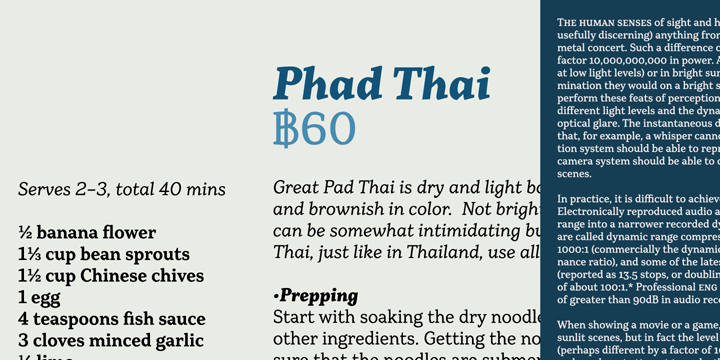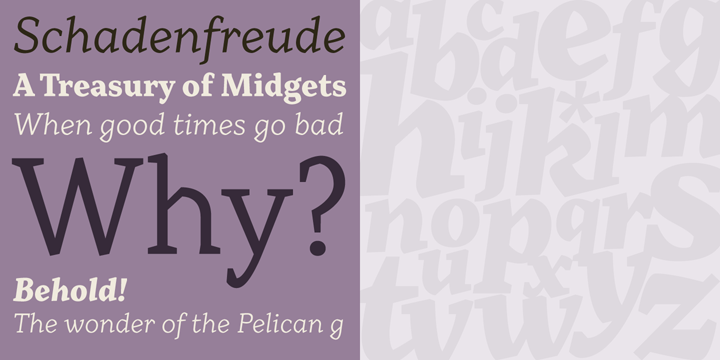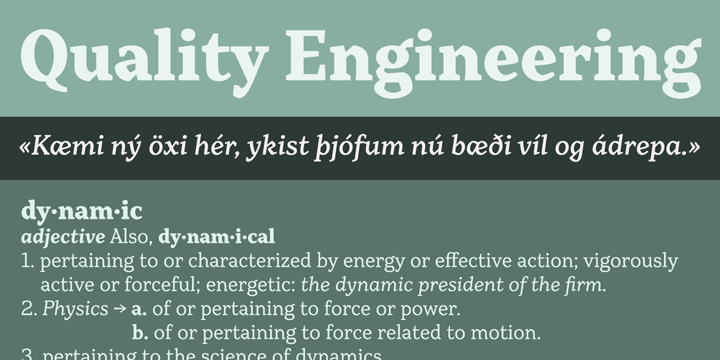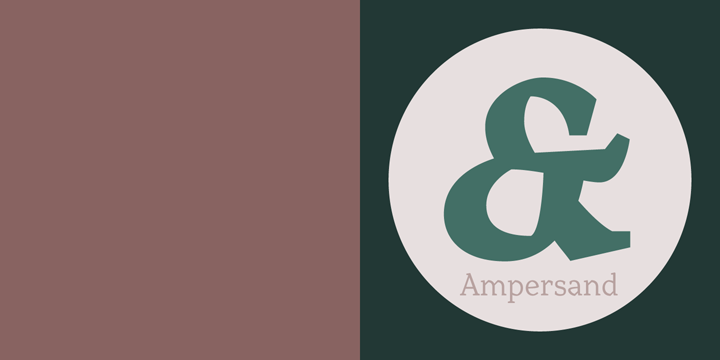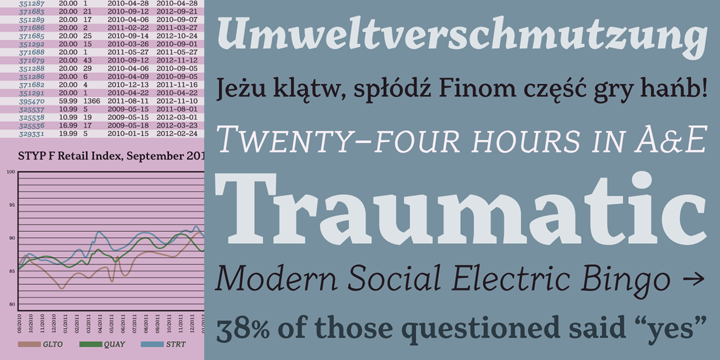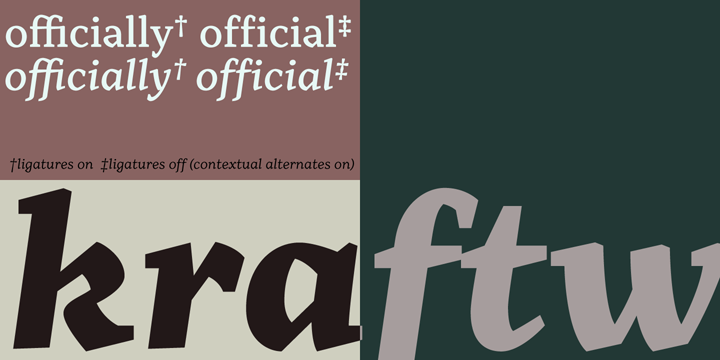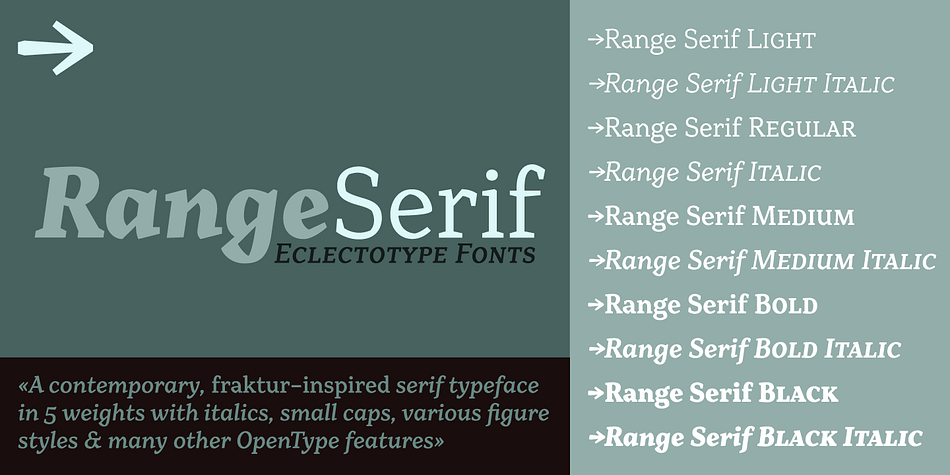
Range Serif is a serif font family. This typeface has ten styles and was published by Schizotype Fonts.
Range Serif is a sharp, contemporary, wedge serif typeface with just a hint of fraktur influence. There are five weights from light to black, each with corresponding italics.
This is a typeface designed for demanding typographic work; it’s legible at small sizes, but unique at display sizes. There is an abundance of OpenType features in each font, including:
Ligatures - all fonts contain standard f-ligatures.
Contextual Alternates - Range Serif has been carefully designed to not ‘need’ ligatures. If you choose to deactivate them, the contextual alternates feature will make sure an alternative f is used before certain letters to avoid clashing.
Fractions - When activated, numbers separated by a slash will automagically turn into fractions.
Numerals - There are many different figure sets. These are Proportional Lining, Tabular Lining, Proportional Oldstyle, Tabular Oldstyle, Superiors and Scientific Inferiors. A slashed zero feature is also included.
Small Caps - All styles include small caps, for both small caps and capitals to small caps functions.
Ornaments - For convenience, the arrows are grouped in the ornaments feature.
Case Sensitive Forms - There are different punctuation and bracket glyphs for all caps usage.
Stylistic Alternates / SS01 - The italic fonts contain alternates for the letters A, K, R, U and X.
Range Serif is a versatile and fully-featured typeface, ideal for corporate identities, contemporary art catalogs, even t-shirt slogans. The language coverage is impressive (Latin Extended A is fully covered) so Range Serif should prove a useful text and display workhorse for speakers of many different tongues. The typeface includes an array of currency symbols, including the new symbols for Indian Rupee and Turkish Lira.